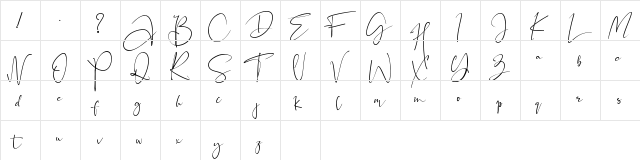
Black Pink Signature Regular
| Designer | Letterara 2019 |
Design Context for Black Pink Signature Typeface
Black Pink Signature is a composed and adaptable typeface that performs quietly and consistently across a wide range of design contexts.